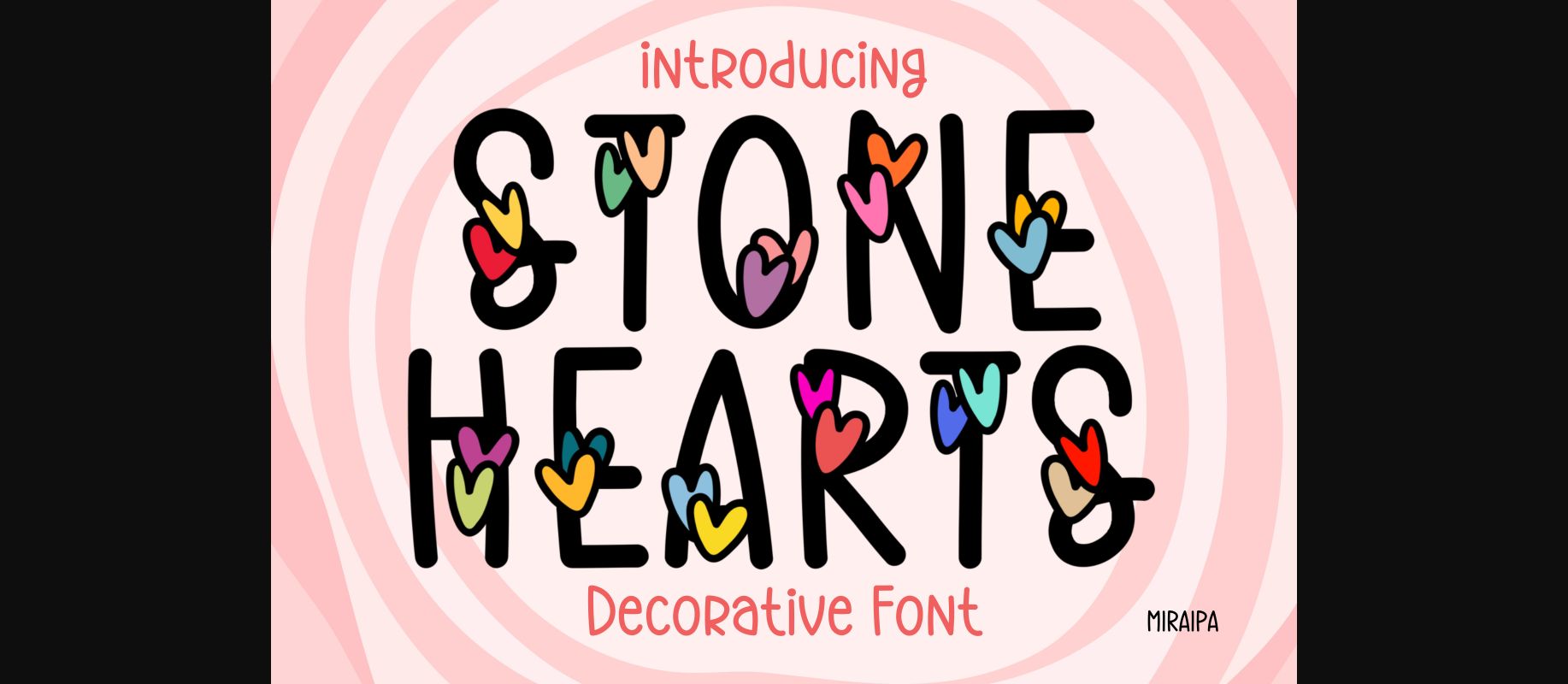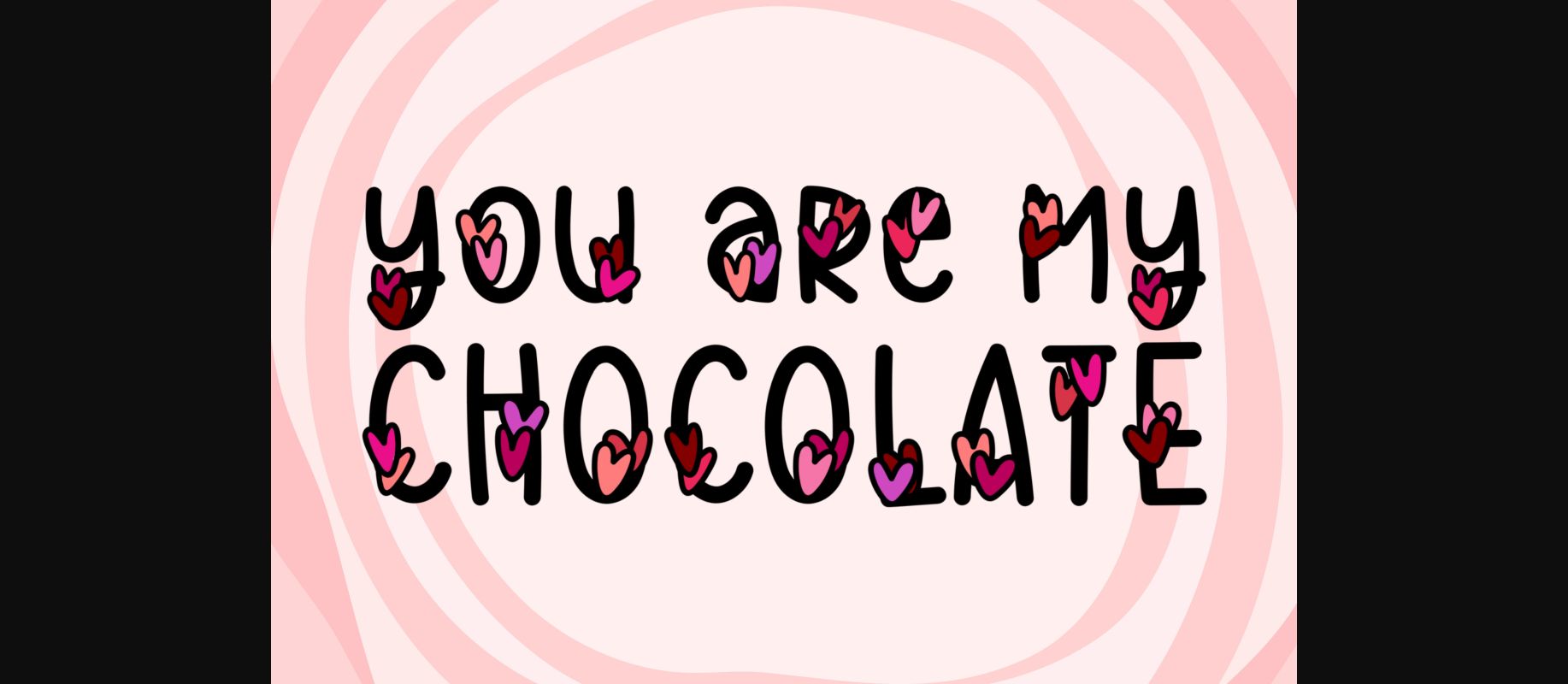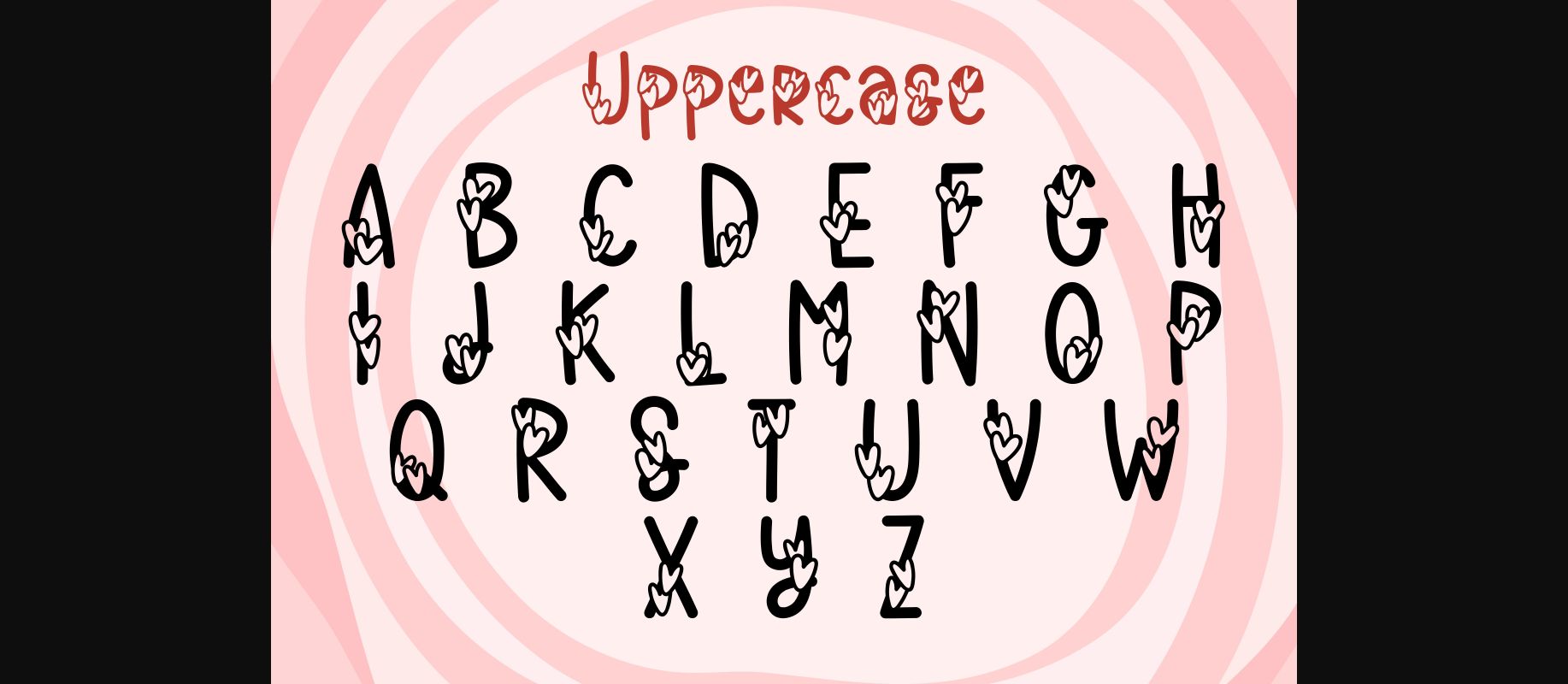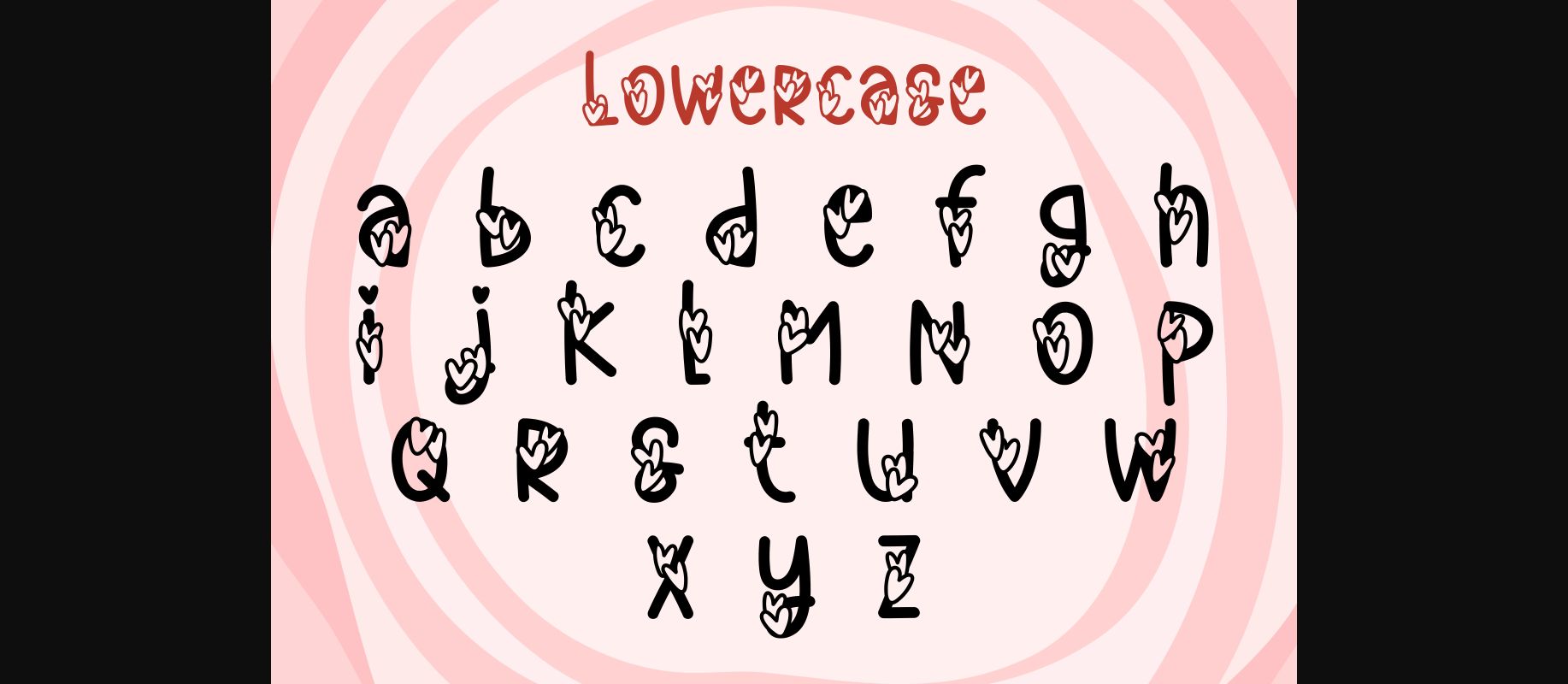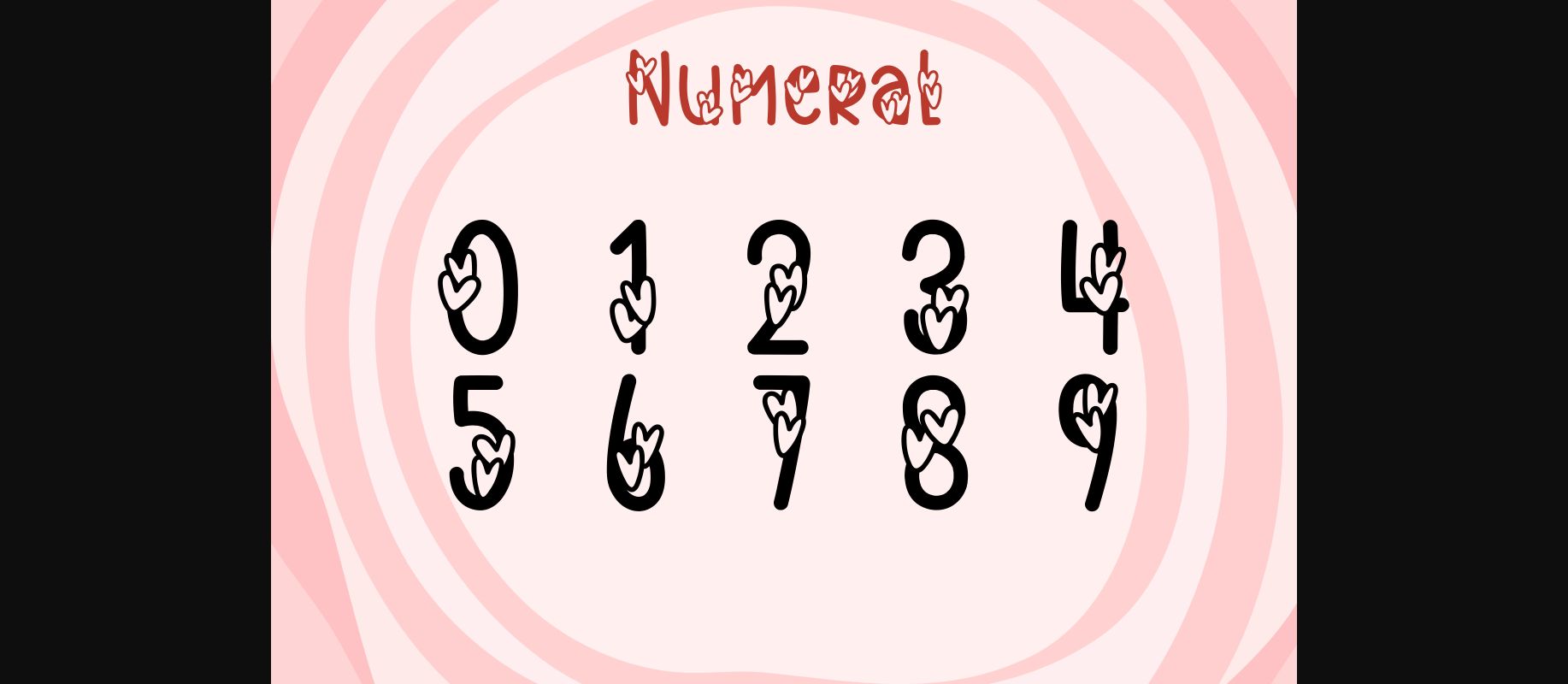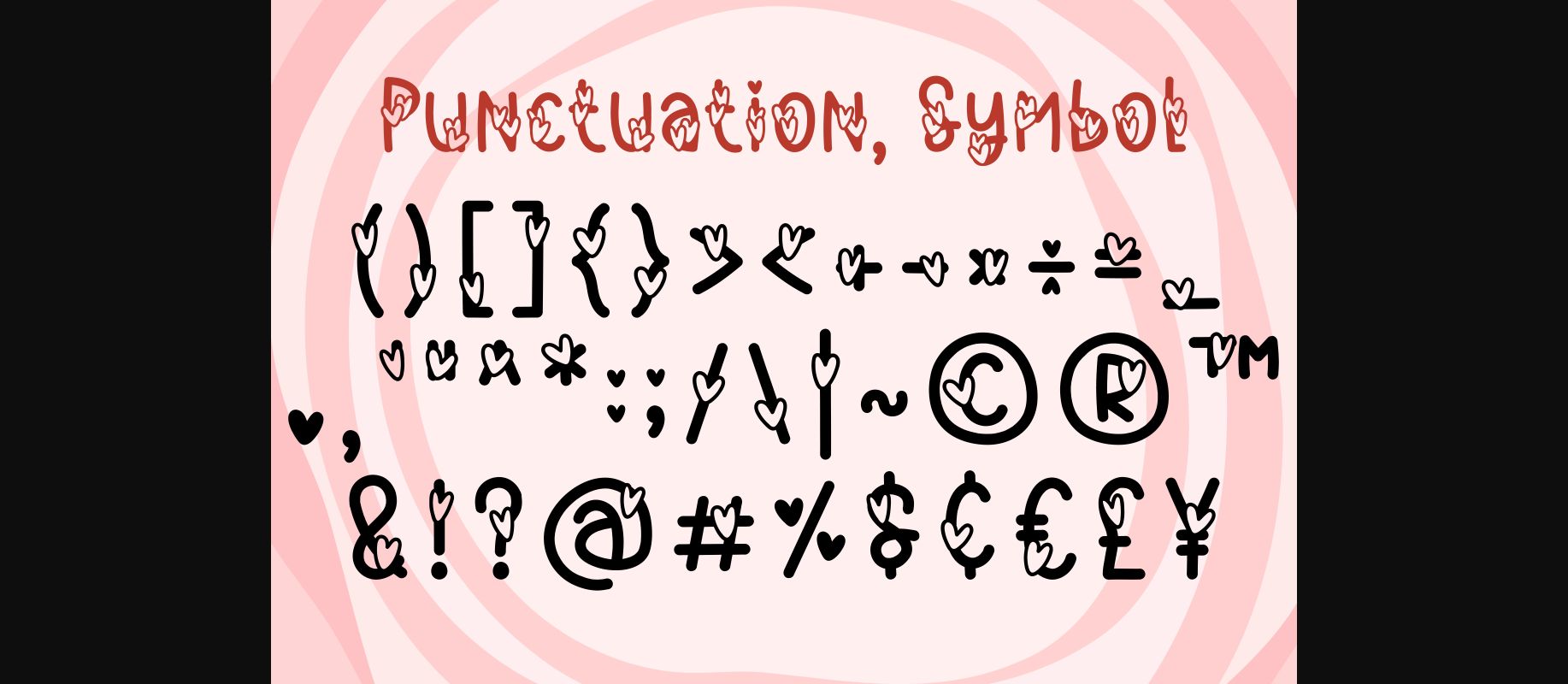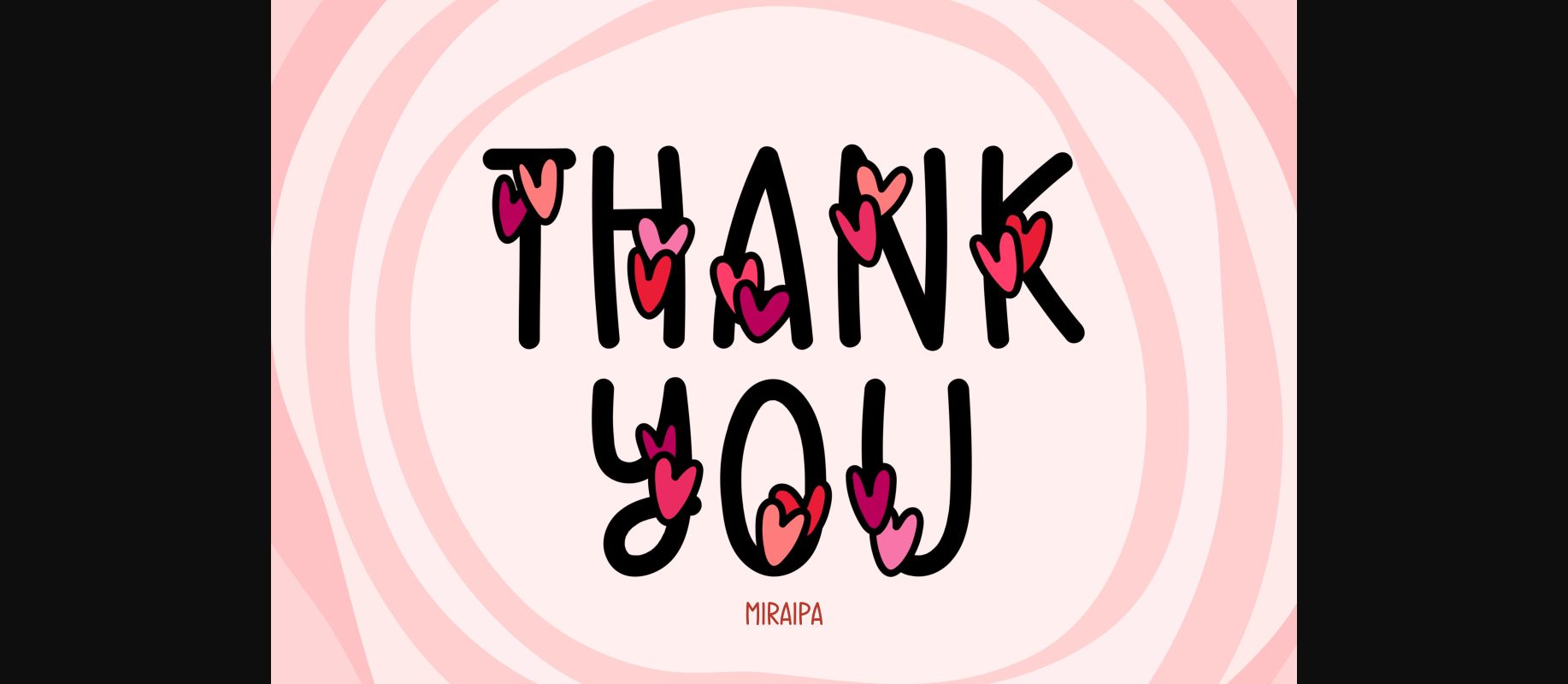
HomeDecorative FontsStone Hearts Font Decorative Fonts Stone Hearts Font FacebookXPinterestWhatsApp 1 of 9 ... Stone Hearts Font Poster 2... Stone Hearts Font Poster 3... Stone Hearts Font Poster 4... Stone Hearts Font Poster 5... Stone Hearts Font Poster 6... Stone Hearts Font Poster 7... Stone Hearts Font Poster 8... Stone Hearts Font Poster 9... About Stone Hearts Font Stone Hearts is a cute and friendly handwritten decorative font. This original look will appeal to a wide range of crafty ideas, from letterheads and titles to stationery. DOWNLOAD NOW People also explored Olivia Font Rasyid Sans Letters Font Disnay Summer Font The Laughing Wolf Font Candy Tree Font Anguela Font Saturated Font Wellows Font Atheroll Font 345 0 TagsStone Hearts Font Previous articleLove Heart FontNext articleLove Farm Font LEAVE A REPLY Cancel reply Comment: Please enter your comment! Name:* Please enter your name here Email:* You have entered an incorrect email address! Please enter your email address here Website: Save my name, email, and website in this browser for the next time I comment. Personal Use Free JVNE Smoothdron Personal Use Free Read more about this font The Lima Personal Use Free Read more about this font Ammanda Personal Use Free Read more about this font Mandara Personal Use Free Read more about this font BLOG Free vs Paid Fonts: Why Investing in Premium Fonts Is Worth It Free vs Paid Fonts: Why Premium Fonts Are Worth It in 2025 The debate of free vs paid fonts continues in the design world. While... Best Fonts for T-Shirt Design – Top 2025 Picks Modern Sans-Serif Fonts That Brands Love in 2025 Using Fonts in Digital Marketing: Tips to Strengthen Your Brand Identity